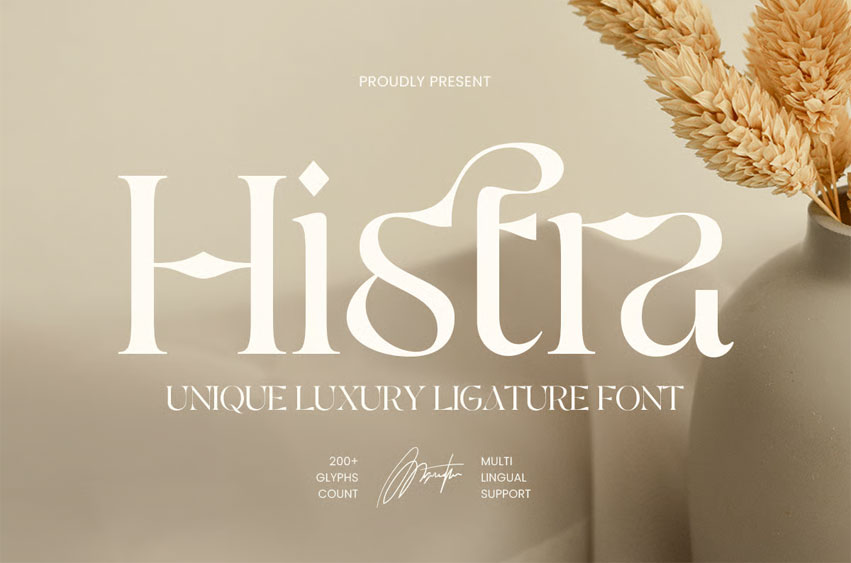
Histra Font
Histra Font Unique Luxury Ligature Font Histra is a unique luxury font crafted with elegant ligatures to create a refined, premium, and sophisticated visual identity. With its smooth curves, stylish connections, and balanced proportions, Histra is perfect for luxury branding, logos, fashion labels, editorial headlines, packaging, and high-end design projects.
Designed to express exclusivity and elegance, Histra blends modern aesthetics with classic luxury appeal. Its distinctive ligature details add character and refinement, making it ideal for premium brands, boutiques, beauty products, lifestyle businesses, and creative studios seeking an upscale typographic presence.
Histra – Unique Luxury Ligature Font Features:
• Luxury style font with elegant custom ligatures
• Ideal for branding, logos, fashion, and premium design
• Smooth curves with refined letter connections
• Perfect for elegant, premium, and high-end visual identities
Elevate your brand with Histra – the luxury ligature font made for elegance and distinction.